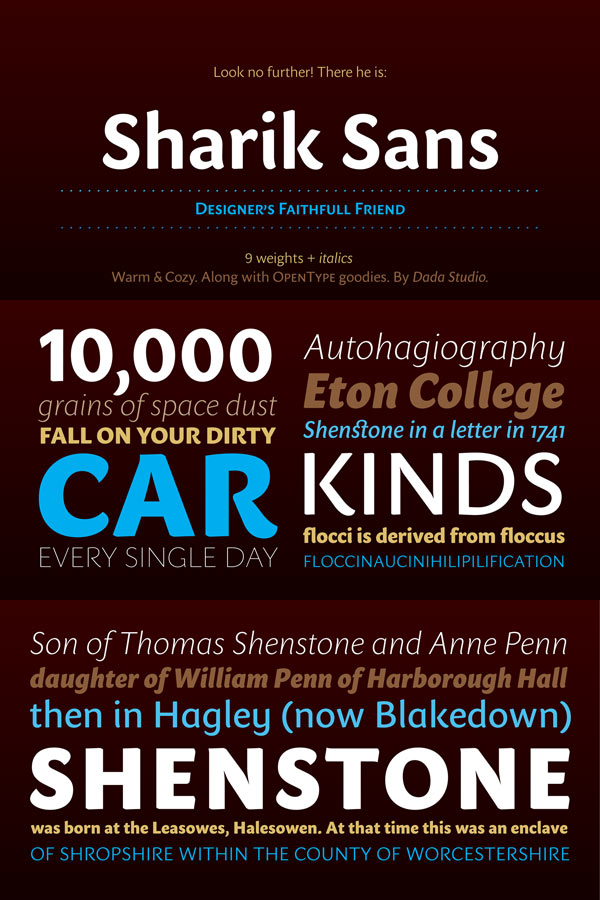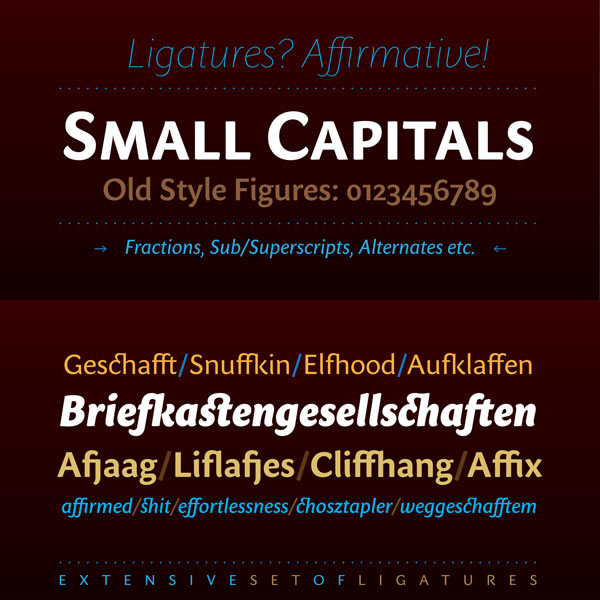
Sharik Sans – A Friendly Type Family.
The Sharik Sans font family was created in 2013 by font designer Michał Jarociński (Font Publisher: Dada Studio). It offers a warm and gentle typeface reminiscent of oriental forms. Sharik Sans is intended for your daily work. The typeface is a sans serif with a calligraphic touch in its subtle details. Sharik Sans includes 9 different weights plus matching italics. The font family is equipped with numerous OpenType features such as ligatures, small capitals, a numerals set, ordinals, fractions, and alternates.